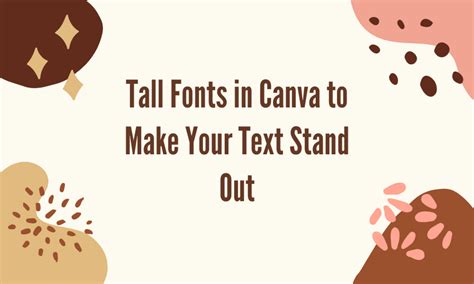
Unlock the Secrets of Fonts: How to Make Your Text Stand Out!
to Fonts
Fonts are an essential part of any graphic design project. They provide a visual representation of your message or concept, and can be used to convey the tone and emotion of the content. With so many different fonts available, it can be difficult to decide which one is best for a particular design. However, with the right knowledge, you can unlock the secrets of fonts and make your text stand out.Choosing the Right Font
Choosing the right font is an important part of any design. The font should be chosen based on the purpose of the design and the message you are trying to communicate. Different fonts can evoke different emotions and evoke different responses from viewers. For example, a more formal design might benefit from a serif font, while a more playful design could use a sans-serif font. It's important to think about the overall design and what type of font will best suit it.Contrast and Hierarchy
When using fonts in a design, it's important to consider contrast and hierarchy. Contrast refers to the difference between two fonts, while hierarchy refers to the way in which the fonts are used in relation to each other. For example, one font could be used for the headline, while a different font is used for the body text. This creates a clear hierarchy and makes it easier for viewers to read and understand the content.Legibility
Another important factor to consider when choosing a font is legibility. Fonts should be easy to read and understand, and should not be too small or too large. The size of the font should also be appropriate for the size of the design. For example, a larger font might be necessary for a larger design, while a smaller font might be more appropriate for a smaller design.Style and Personality
In addition to legibility and hierarchy, font choice can also be used to add style and personality to a design. Different styles of fonts can evoke different feelings and emotions, and they can also be used to convey a particular message or concept. For example, a bold font might be used to make a statement, while a more playful font could be used to add a touch of fun to a design.Mix and Match
Using multiple fonts can be a great way to add interest and personality to a design. Mixing and matching fonts can be a fun way to create a unique look, and combining fonts can help to create contrast and hierarchy. For example, a bold font could be used for the headline, while a more playful font is used for the body text.Examples of Fonts
There are many different fonts available, and it can be helpful to look at some examples of fonts to get an idea of what is available. Examples of popular fonts include Serif, Sans-Serif, Script, Decorative, and Display. Each of these font styles can be used to create a unique look, and they can all be used to create contrast and hierarchy.Tips for Choosing Fonts
When choosing fonts for a design, it is important to consider the purpose of the design and the message you are trying to communicate. It is also important to think about legibility, contrast and hierarchy, and style and personality. Additionally, it can be helpful to look at some examples of fonts to get an idea of what is available and to get inspired.Example of Unlock the Secrets of Fonts: How to Make Your Text Stand Out!
For example, for a modern and professional design, you could use a bold sans-serif font for the headline and a more playful script font for the body text. This combination will add contrast and interest to the design, while still conveying the right message.Point of View
Using fonts correctly can be a great way to add style and personality to a design, while also conveying the right message. By understanding the basics of font choice, you can unlock the secrets of fonts and make your text stand out.for Blog Visitors
Choosing the right font for a design can be daunting, but with a little research and understanding of the basics, you can create a design that is professional and eye-catching. Unlock the secrets of fonts and make your text stand out!Source: CHANNET YOUTUBE Learn Law Better